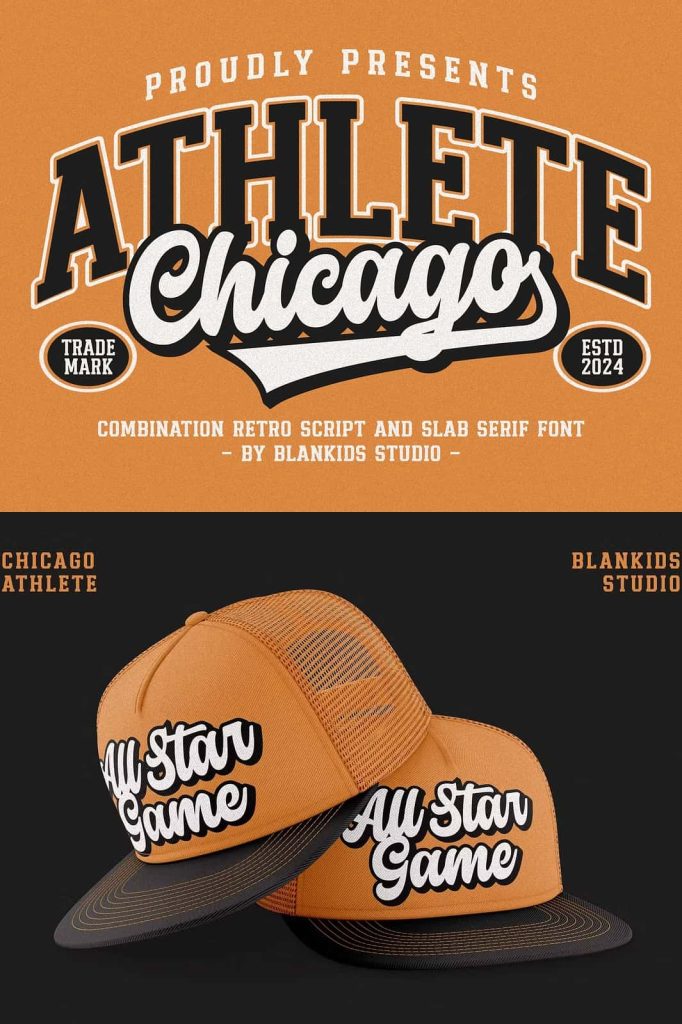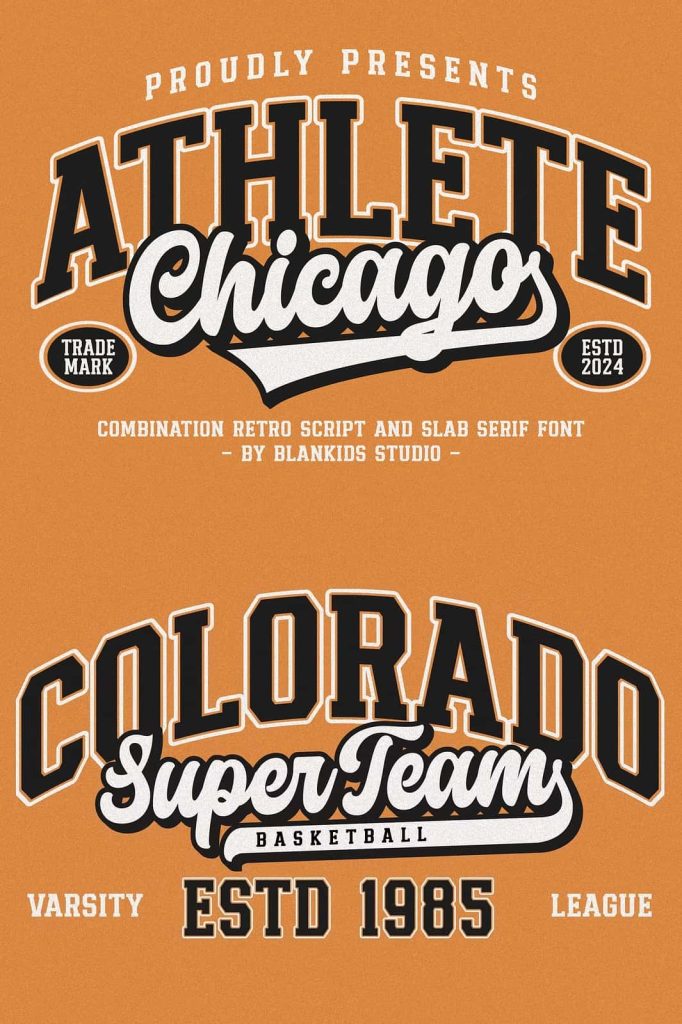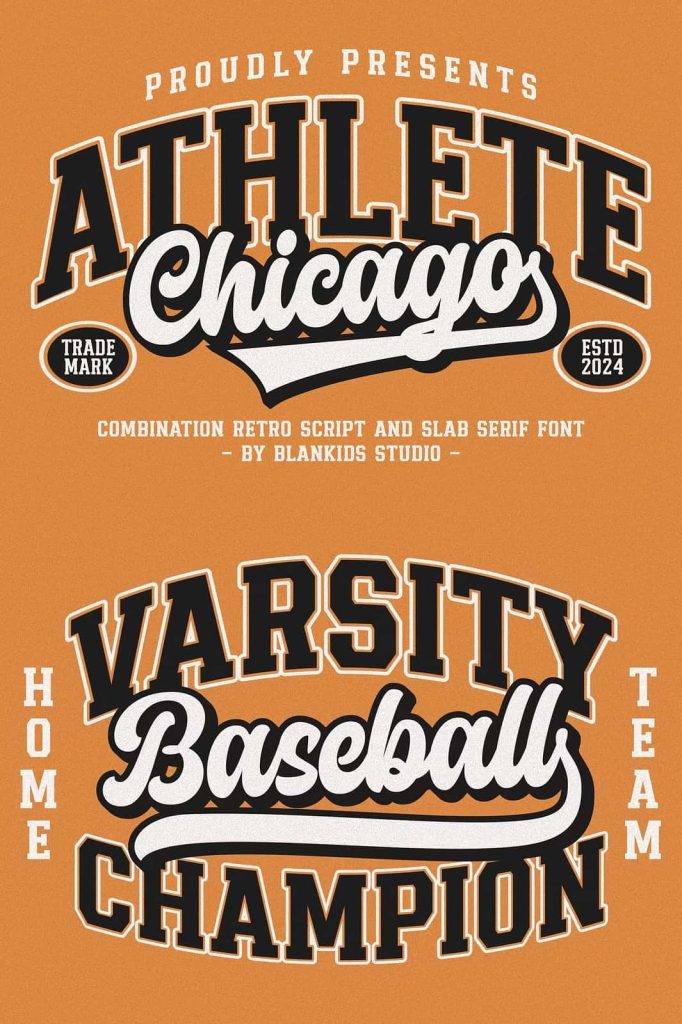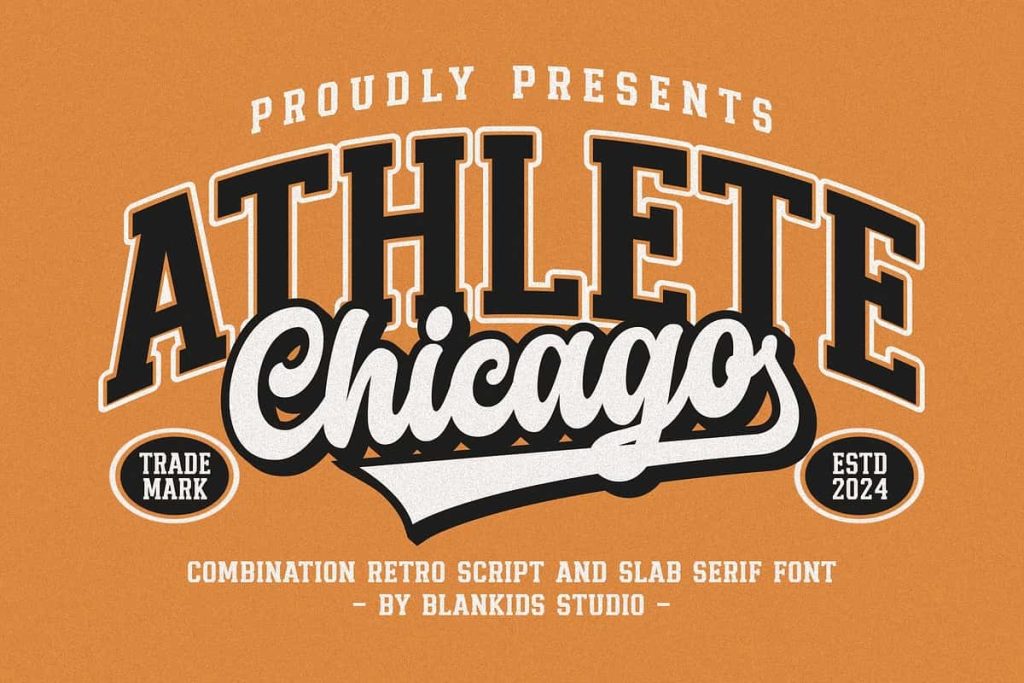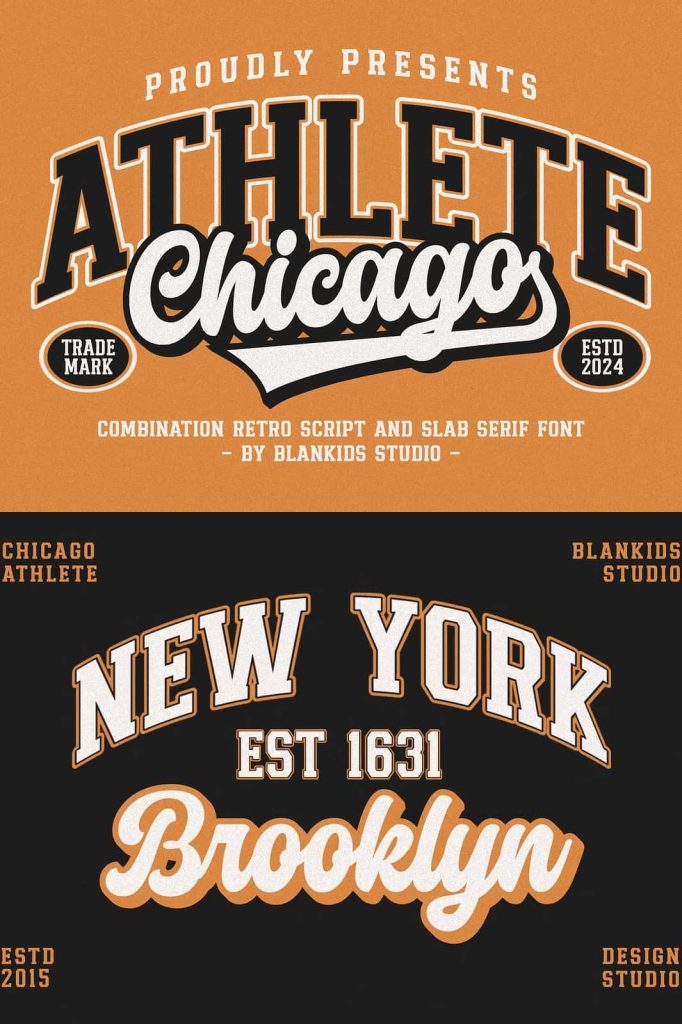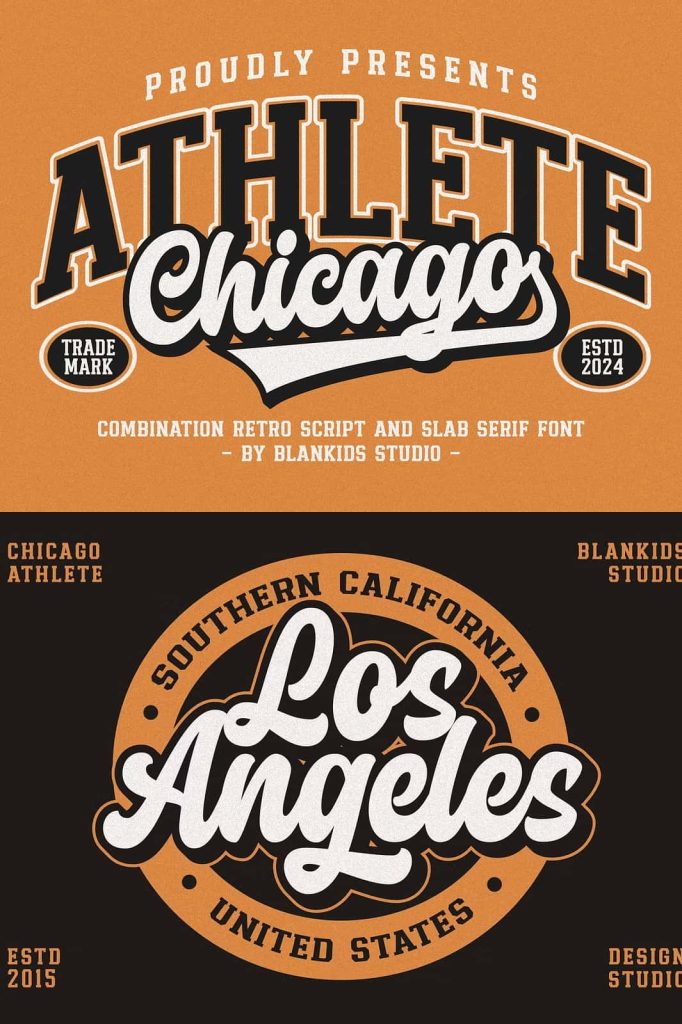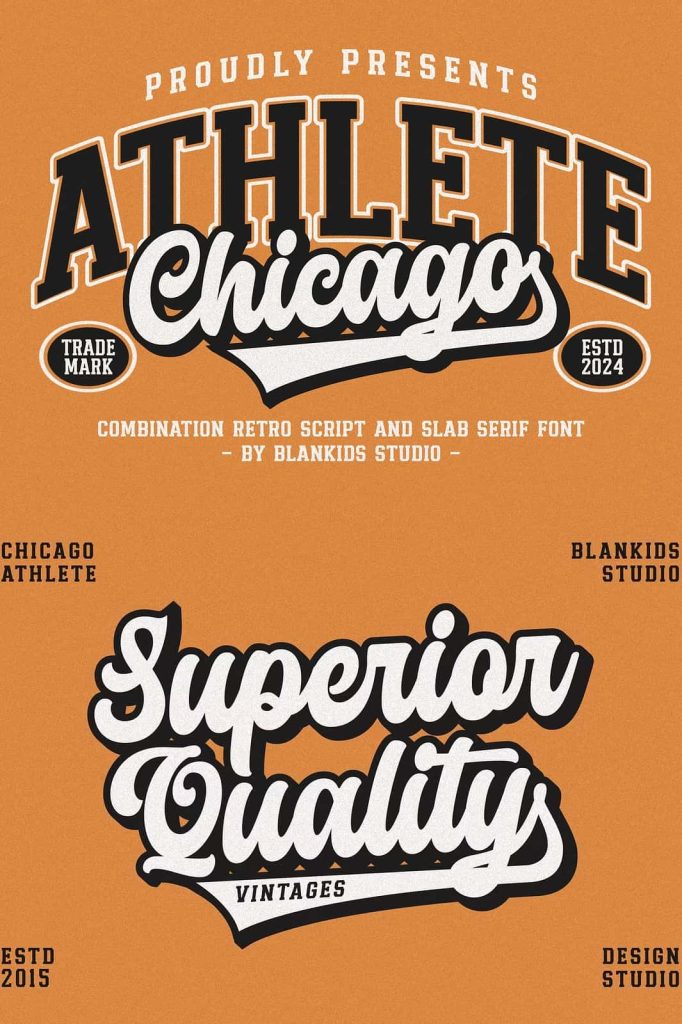
Chicago Athlete a retro sporty font combination is made for any professional project branding, such as logotype, watermarks, poster, branding, promotions, product packaging, etc. Every letter has a retro sporty and varsity style design. This font comes in 4 font combination.